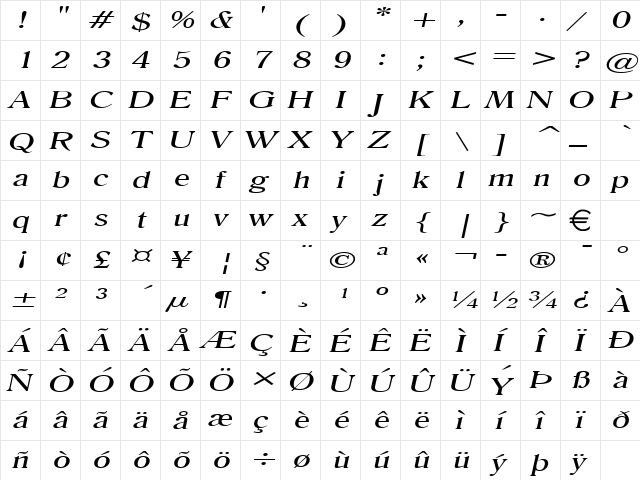
RoomyExtended Italic
Design Context for RoomyExtended Typeface
RoomyExtended offers clean, dependable letterforms without strong stylistic allegiance, making it a practical choice for designers who need flexibility. The slanted form adds forward momentum and visual energy.
Pro Tip: Try RoomyExtended for annotation and caption copy alongside an upright companion — the contrast in angle creates a dynamic but ordered typographic system.